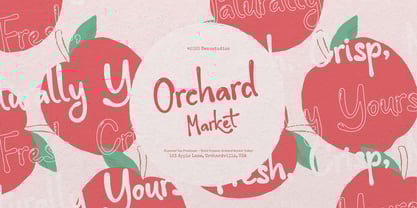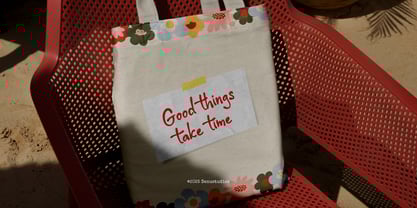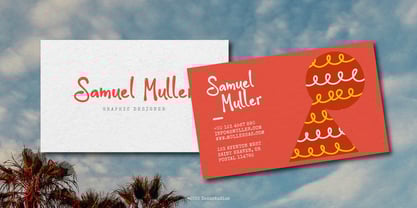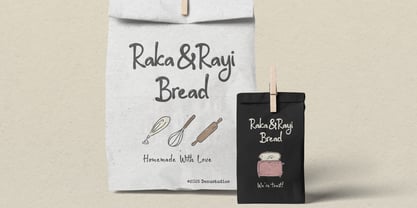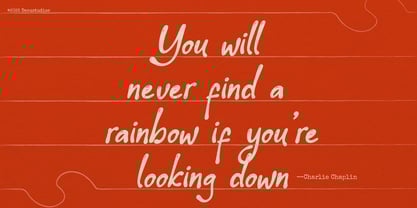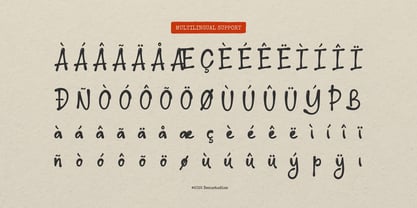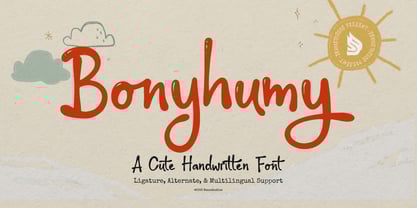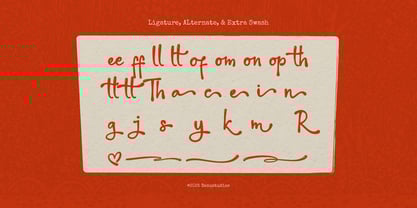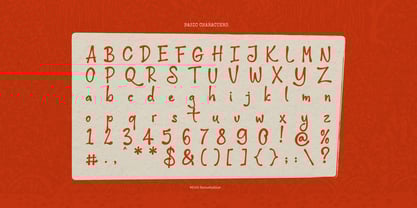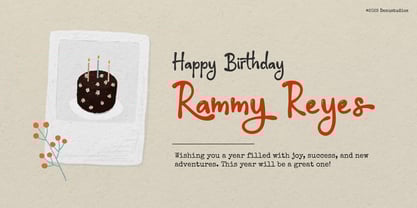
Bonyhumy
by Denustudio
The Bonyhumy Font Family was designed by Dede Nugraha and published by Denustudio. Bonyhumy contains 2 styles and family package options.
Bonyhumy | Cute Handwritten Font, from Denustudios, suitable for any projects such as: logos, branding projects, homeware designs, product packaging, mugs, quotes, posters, shopping bags, t-shirts, book covers, name card, invitation cards, greeting cards, label, photography, watermark, special events, and all your other lovely projects that need Cute Handwritten Font a taste.
• Regular and Italic
• Standard glyphs
• Alternate and Ligature
• Fonts include multilingual support